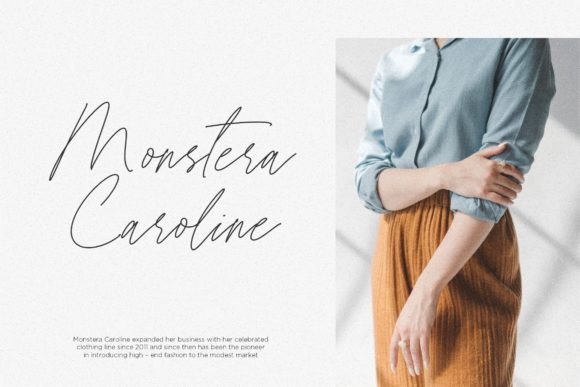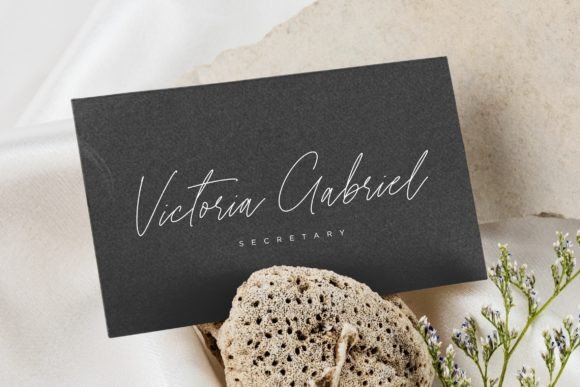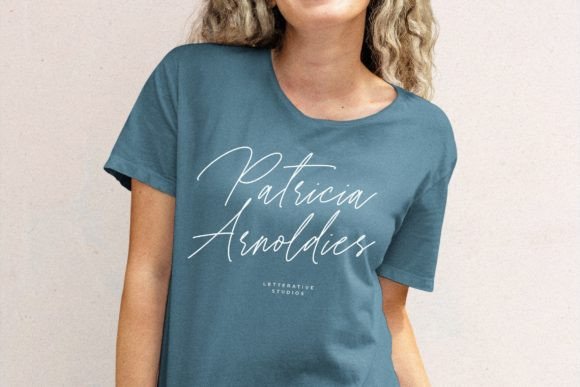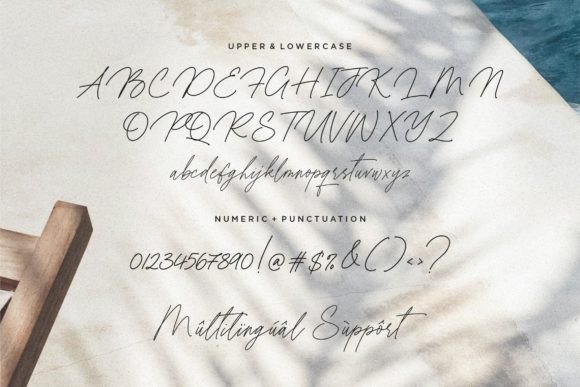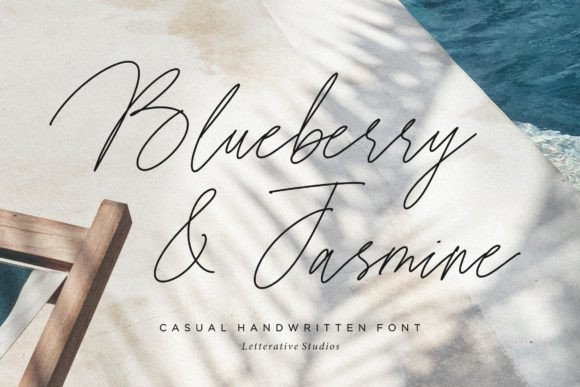
Introducing Blueberry and Jasmine Font: Elevate Your Designs with a Touch of Elegance
Are you on the hunt for a font that exudes a perfect blend of casual charm and neat sophistication? Look no further than the Blueberry and Jasmine font. This beautiful, handwritten font is making waves in the design world, particularly among fashion brands and editorial designers. Its unique characteristics make it an excellent choice for anyone looking to add a touch of elegance and personality to their designs.
The Essence of Blueberry and Jasmine Font
Blueberry and Jasmine is a casual and neat handwritten font, carefully crafted to bring a sense of freshness and style to your designs. Its smooth, flowing lines and delicate curves give it a feminine and approachable feel, making it perfect for a wide range of applications. Whether you’re working on fashion branding, editorial designs, or any project that requires a personal touch, this font is sure to impress.
The versatility of the Blueberry and Jasmine font is one of its most appealing features. Designers and crafters can use it to create a variety of materials, including:
- Fashion branding: Logos, labels, and packaging that require a stylish and sophisticated look.
- Editorial designs: Magazine covers, articles, and blog posts that need a touch of elegance.
- Stationery: Invitations, greeting cards, and letters that demand a personal and charming feel.
- Digital content: Social media graphics, website headers, and email newsletters that require a fresh and modern look.
Why Choose Blueberry and Jasmine Font?
With so many fonts available, why should you choose Blueberry and Jasmine for your designs? Here are a few compelling reasons:
- Unique Style: This font boasts a distinctive style that sets it apart from more traditional fonts. Its handwritten nature gives it a personal and approachable feel.
- Versatility: Whether you’re designing for fashion, editorial, or personal projects, Blueberry and Jasmine adapts seamlessly to any theme or style.
- Ease of Use: This font is easy to read and works well in various sizes, making it perfect for both print and digital applications.
- Customization: The font’s flexibility allows for easy customization to fit your brand’s voice and aesthetic.
Tips for Using Blueberry and Jasmine Font Effectively
To get the most out of the Blueberry and Jasmine font, consider the following tips:
- Pair it Wisely: Combine Blueberry and Jasmine with complementary fonts to create visual interest and hierarchy in your designs.
- Play with Sizes: Experiment with different font sizes to emphasize certain elements and create a dynamic layout.
- Adjust the Color: Choose colors that match your brand’s palette or the mood of your design to enhance the font’s impact.
- Add Texture: Consider adding subtle textures or backgrounds to give your text depth and a more tactile feel.
| Font Name | Blueberry and Jasmine Font |
| Author | letterativestudio |
The Blueberry and Jasmine font is a valuable addition to any designer’s toolkit. Its unique blend of casual charm and neat sophistication makes it perfect for a wide range of applications. By incorporating this beautiful font into your designs, you’ll be able to create stunning and memorable pieces that capture the essence of your brand or project. So why wait? Explore the endless possibilities of Blueberry and Jasmine font today and take your designs to the next level.